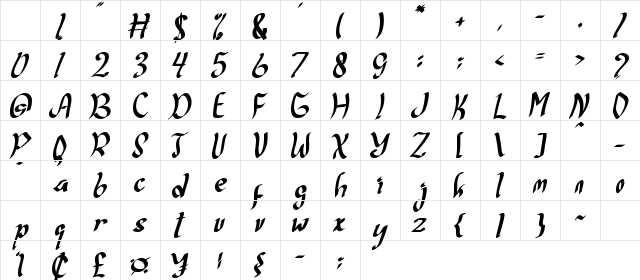
Complete Christmas Collection Regular glyph index. Displaying only characters natively supported by Christmas Collection Regular font.
Christmas Collection is a composed and adaptable typeface that performs quietly and consistently across a wide range of design contexts.